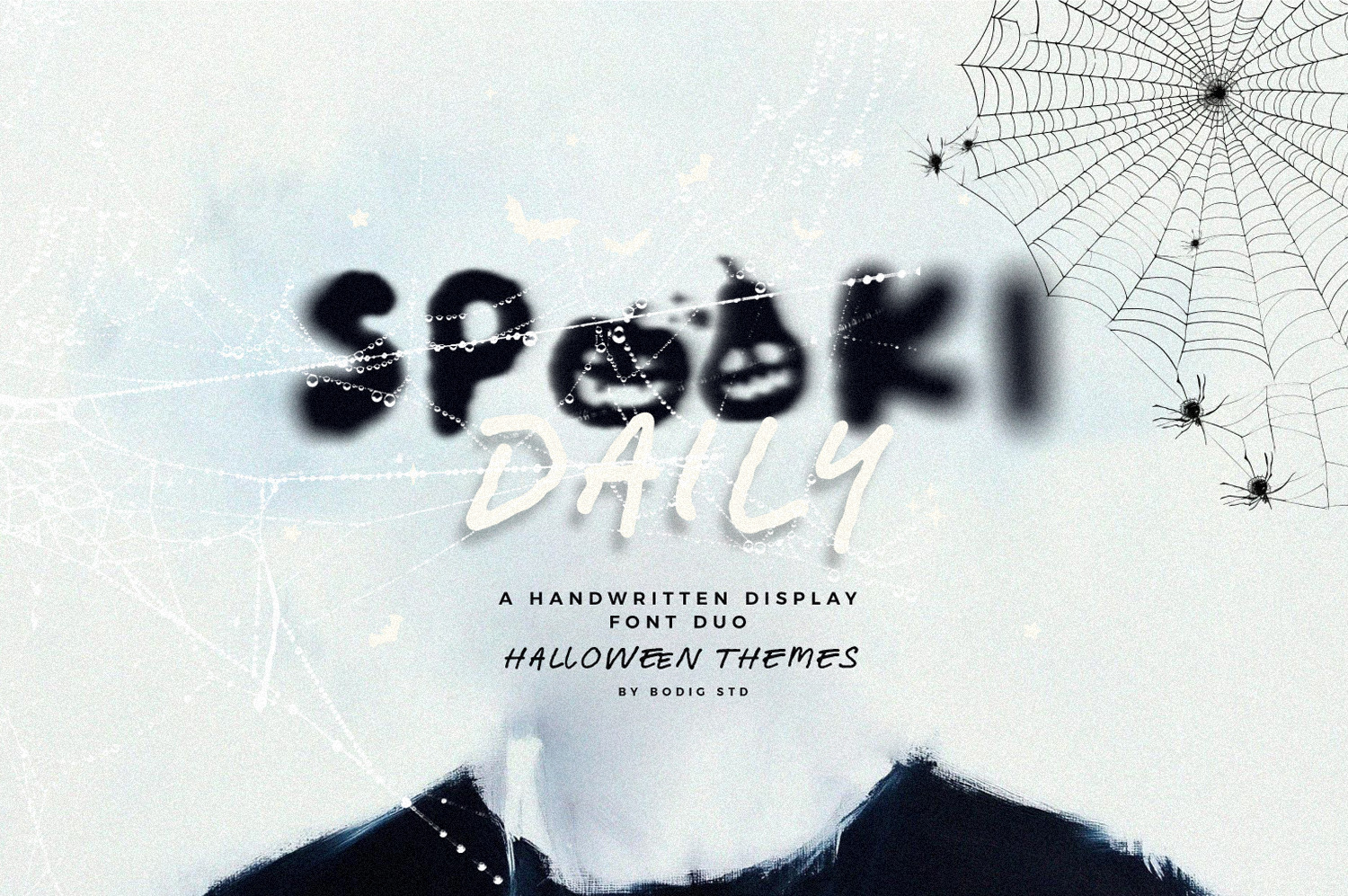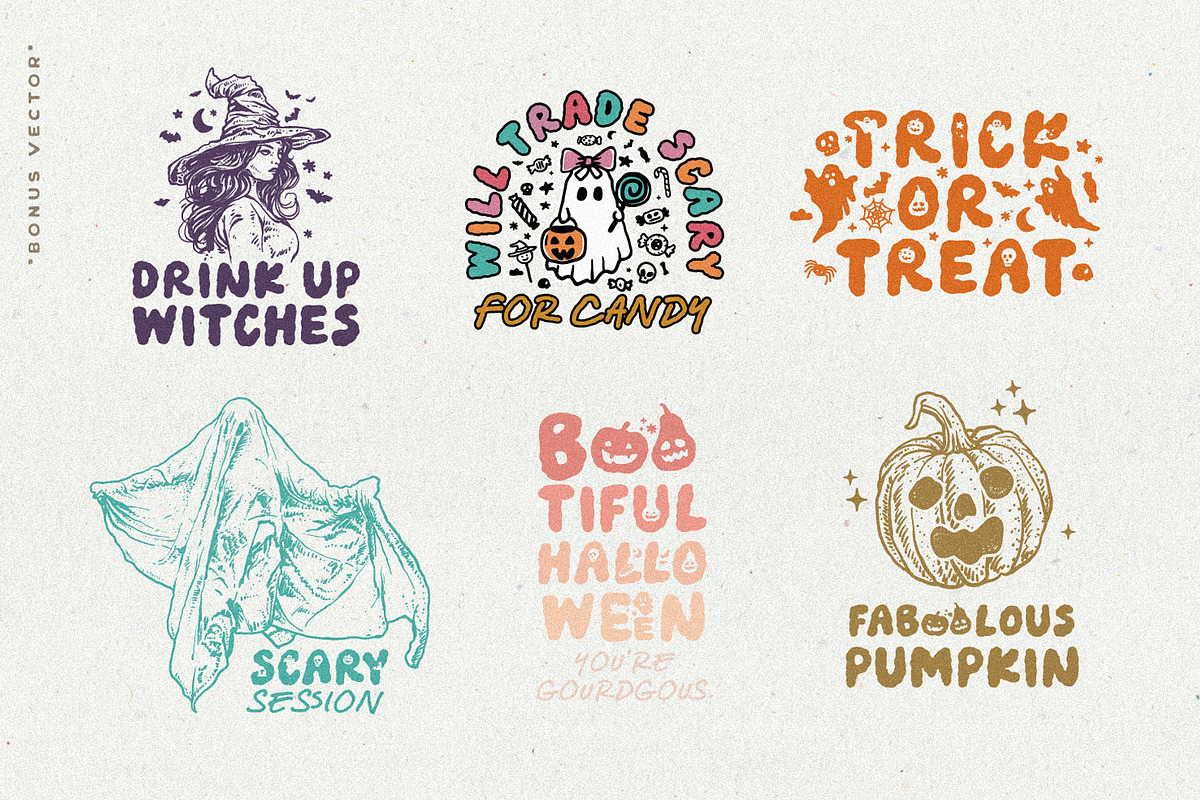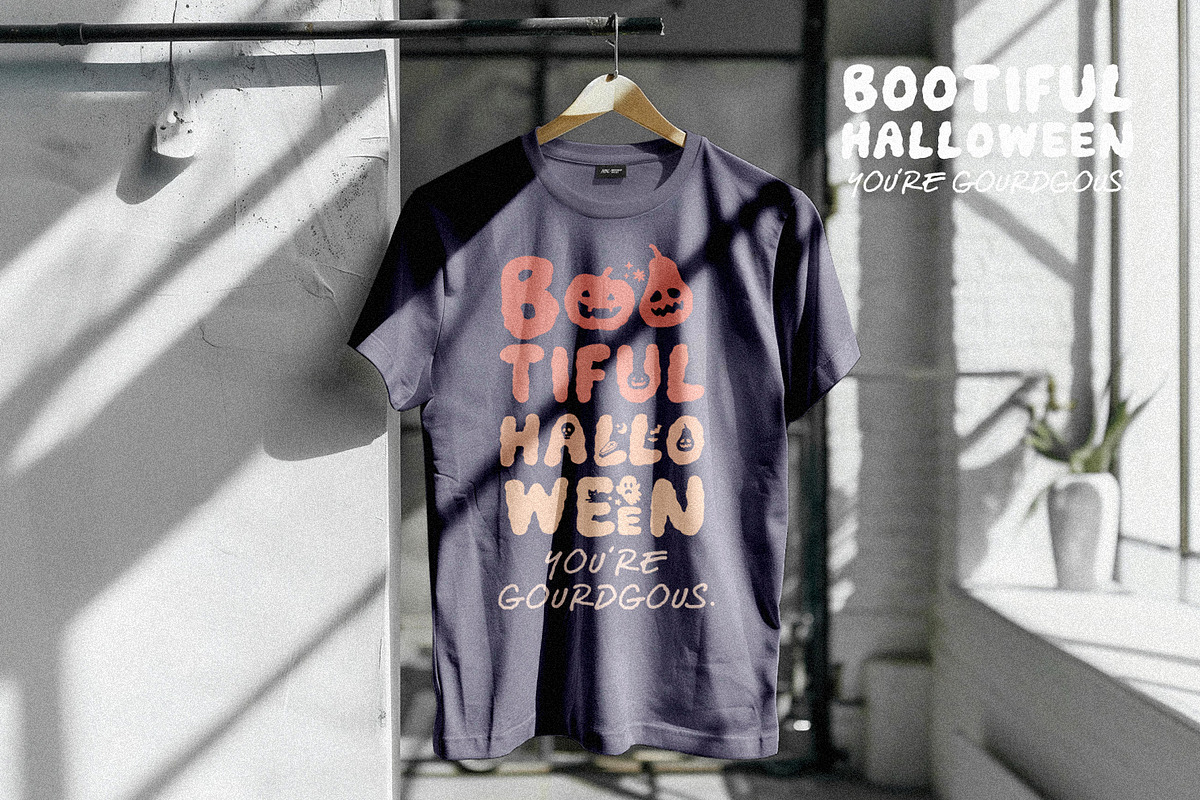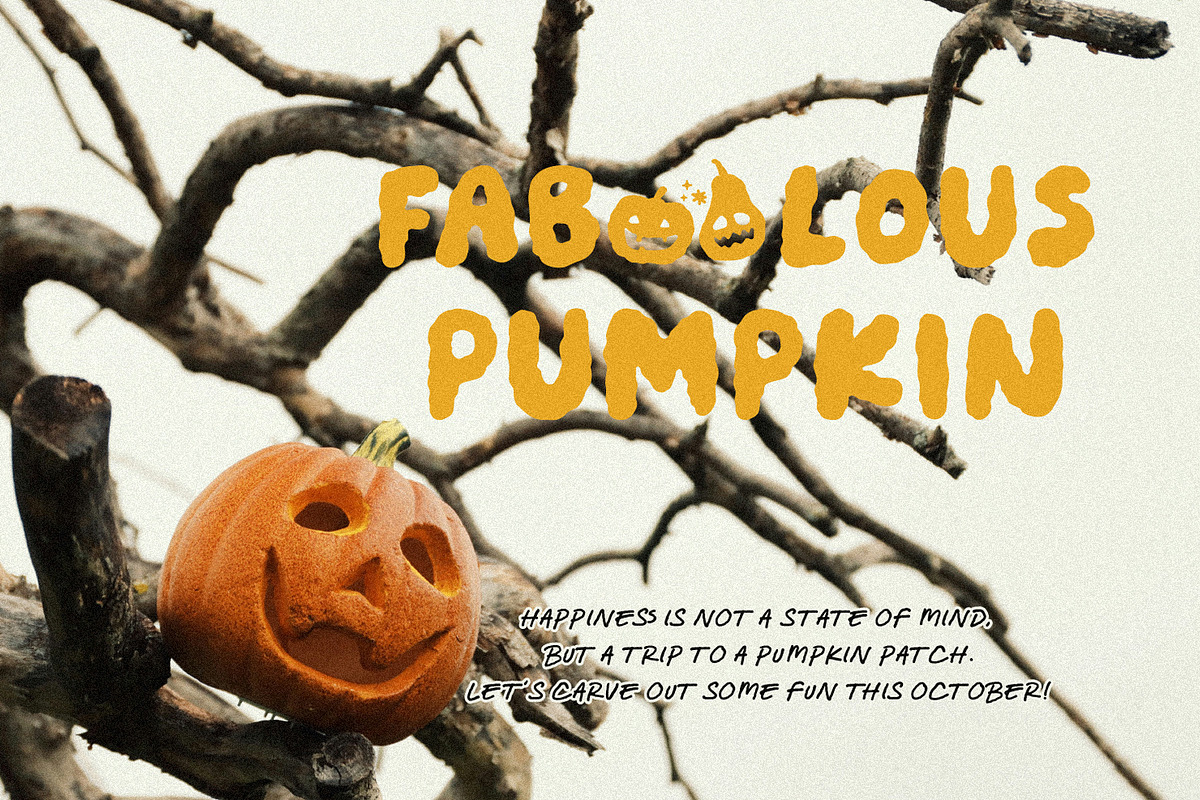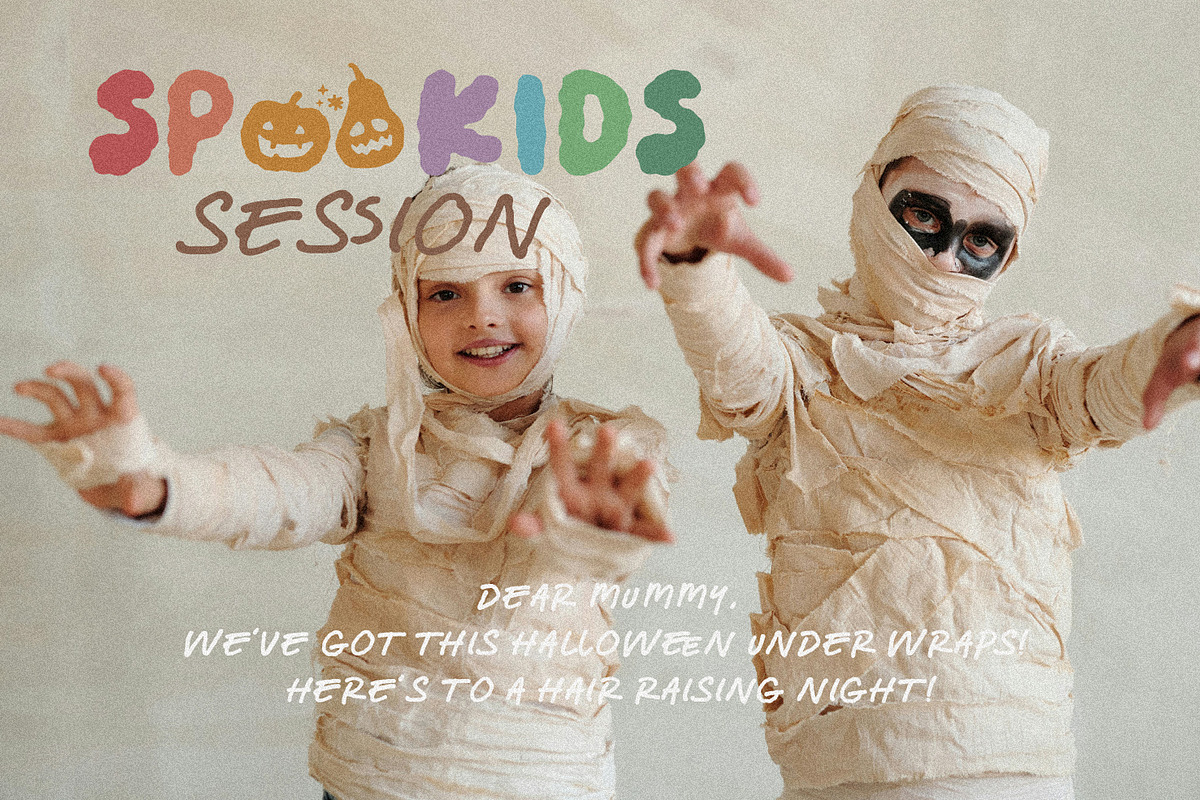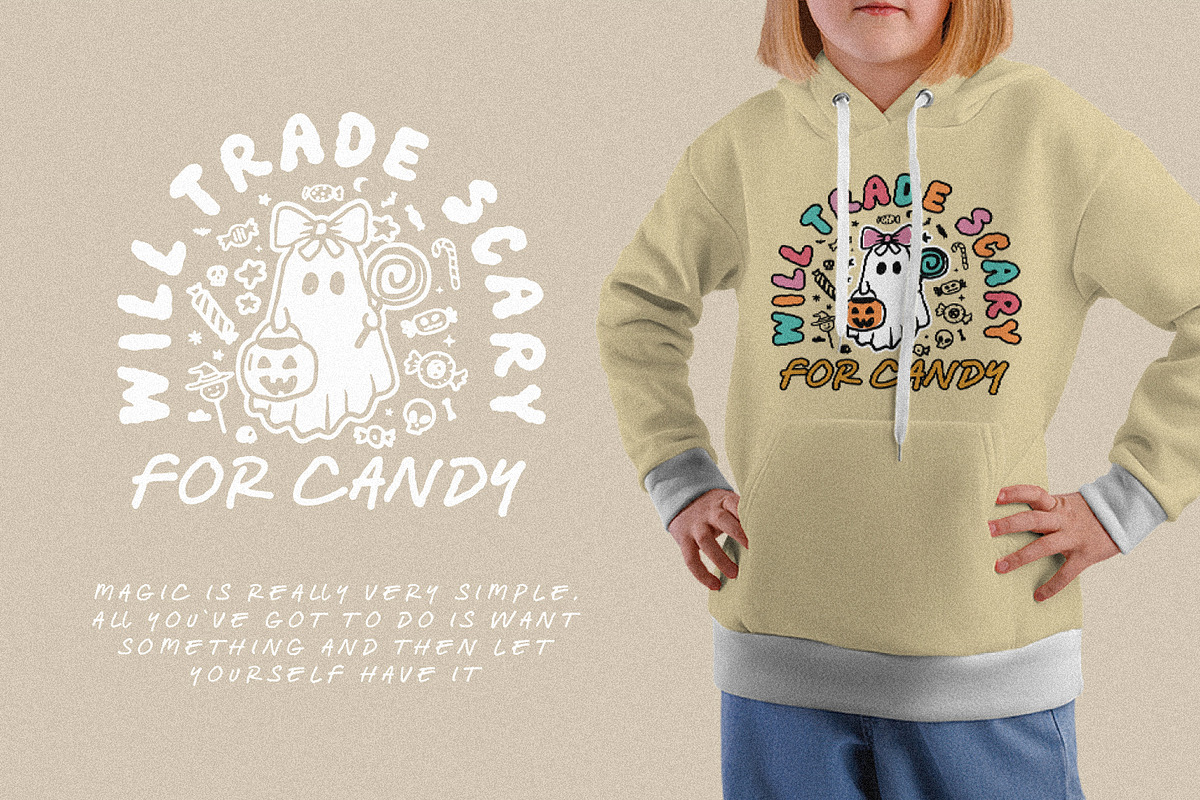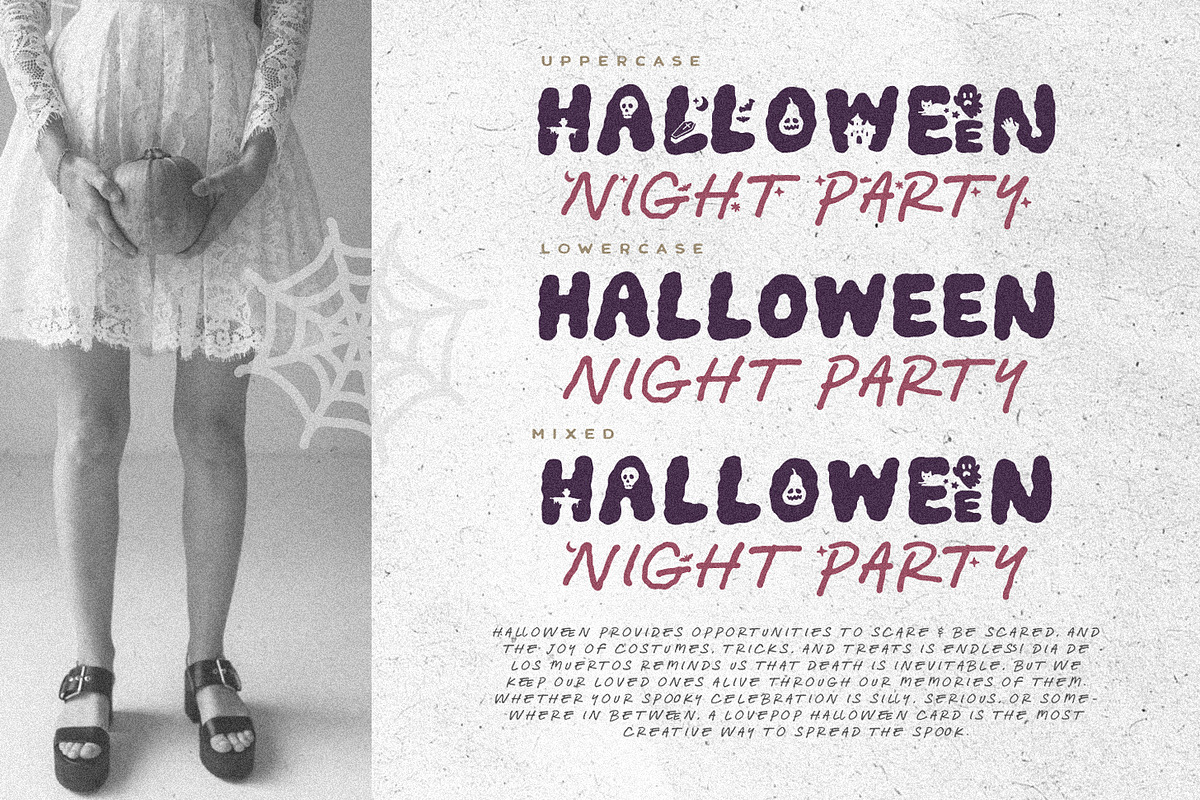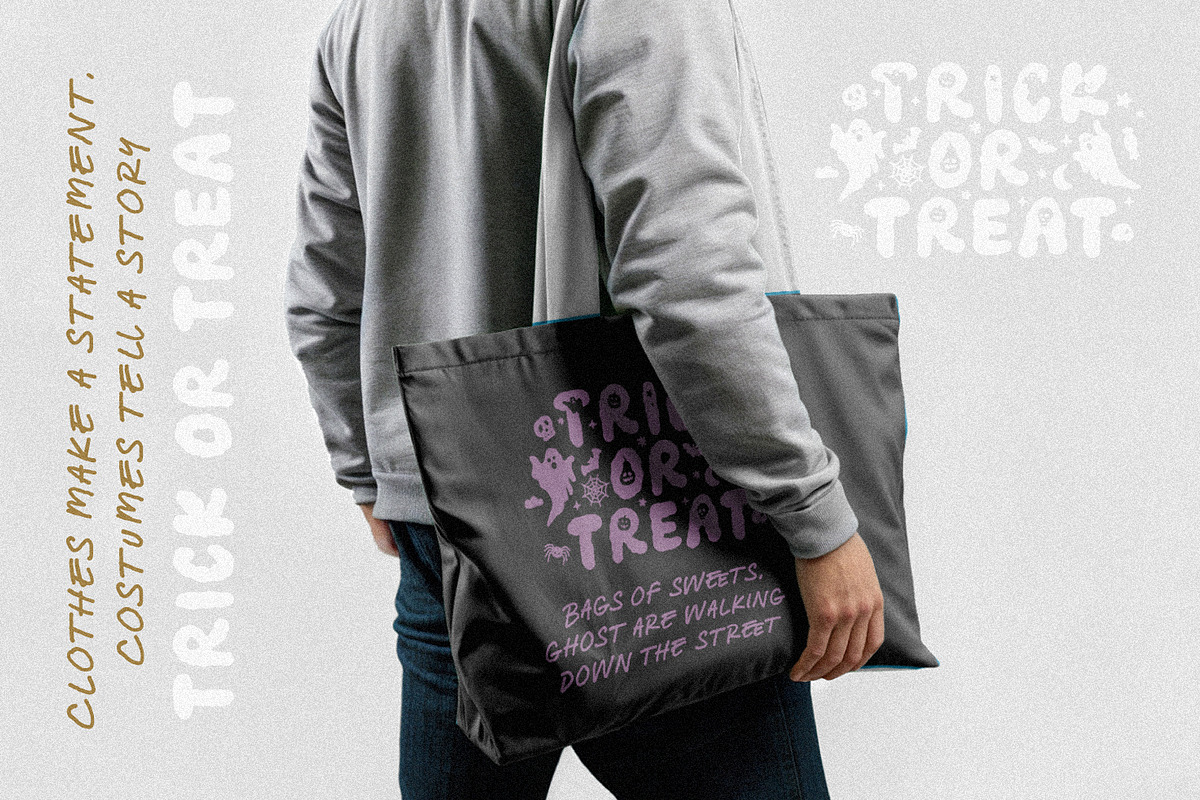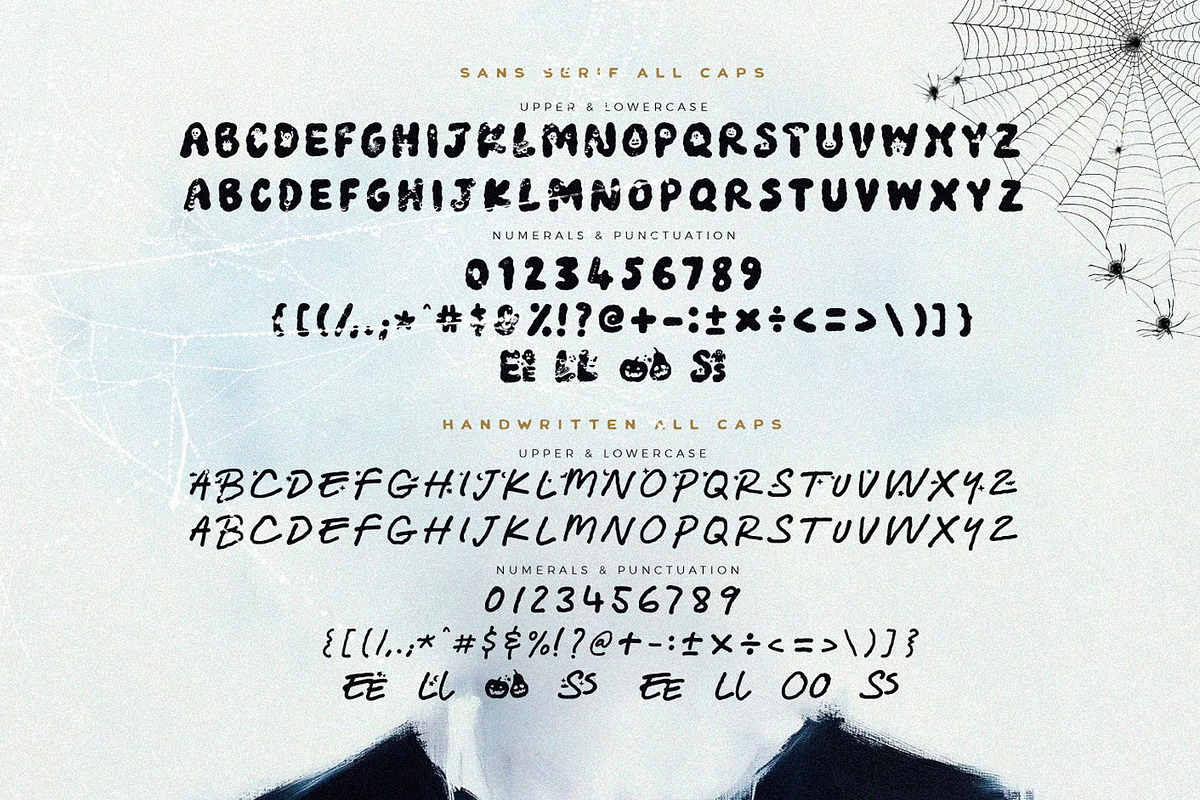
Spooki Daily Font Duo
Spooki Daily font duo is handwritten display all caps typeface with character (uppercase as spooky character) halloween themes. all about spooky, ghoulish fun! With its charming embrace nostalgia. Conjures the eerie essence of classic halloween. Ideal for vintage-themed designs, party invitations, mugs, bags, t-shirt design, kids zone theme and chilling creative projects with natural-looking handwritten, for handwritten font the characters consist of uppercase letters, but they differ in style for the uppercase and lowercase keystrokes, to make the font appear more like natural handwriting. Happiness is not a state of mind, but a trip to a pumpkin patch. Happy Hollow-ween...Boo...!!!